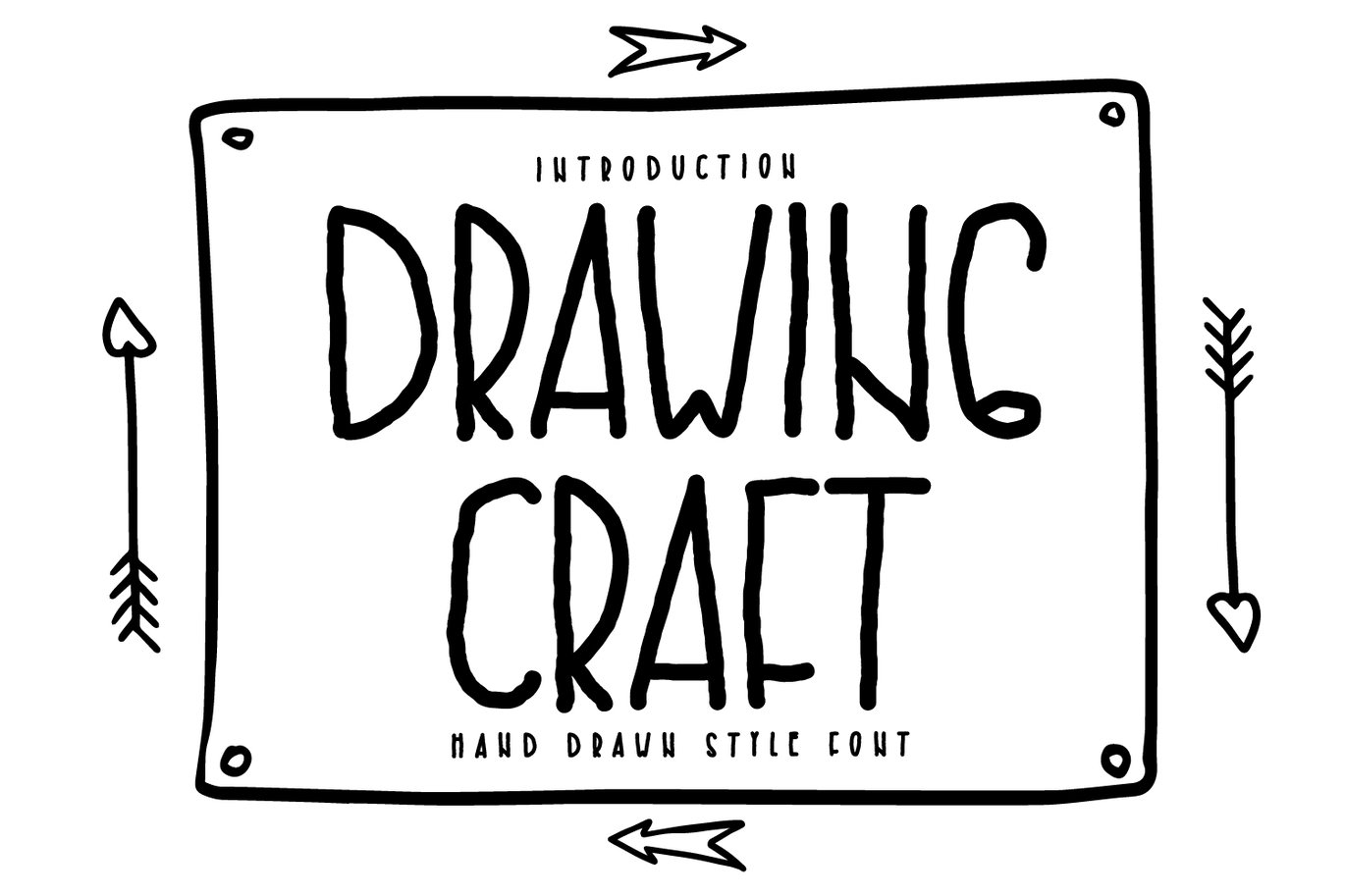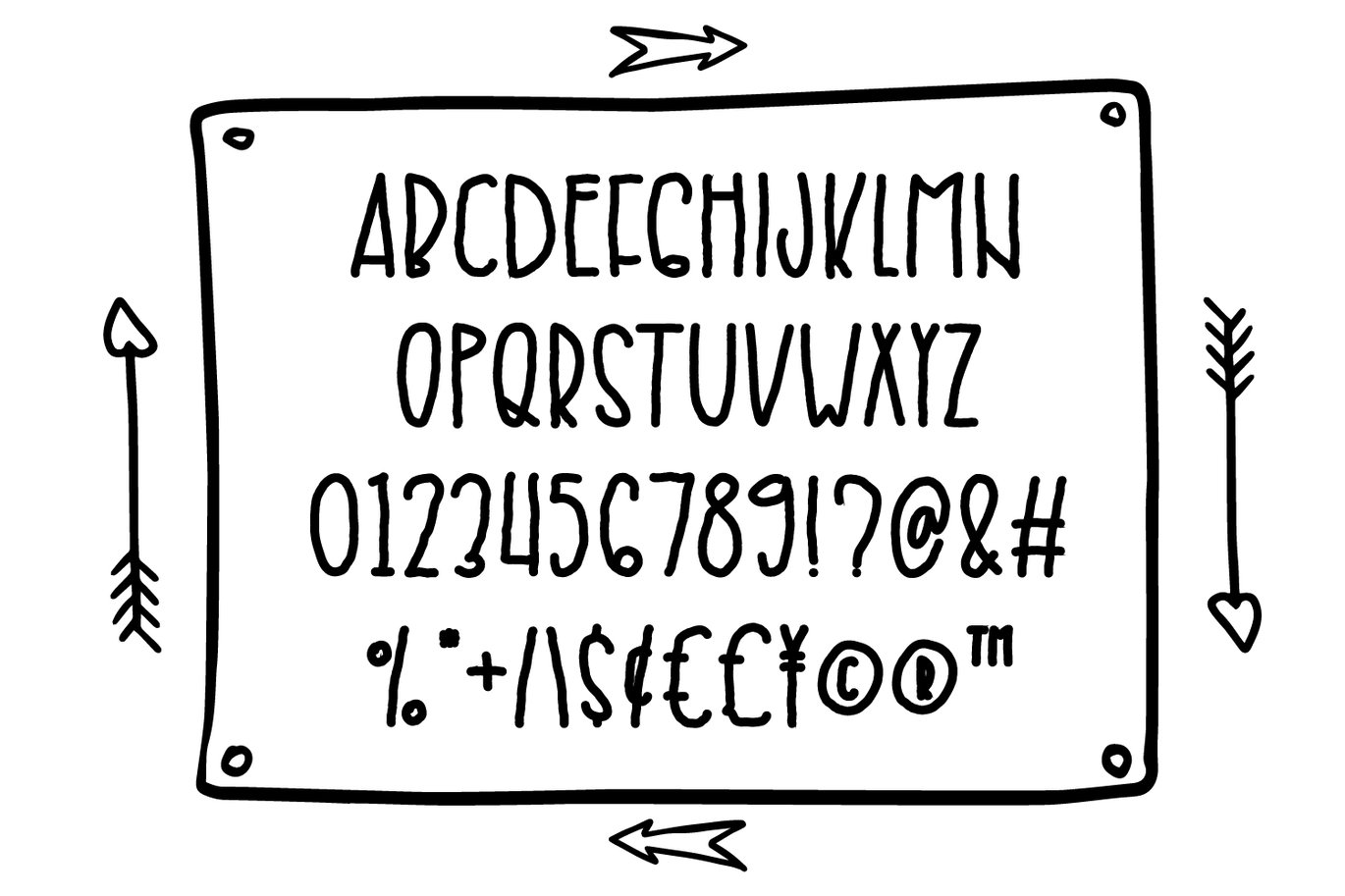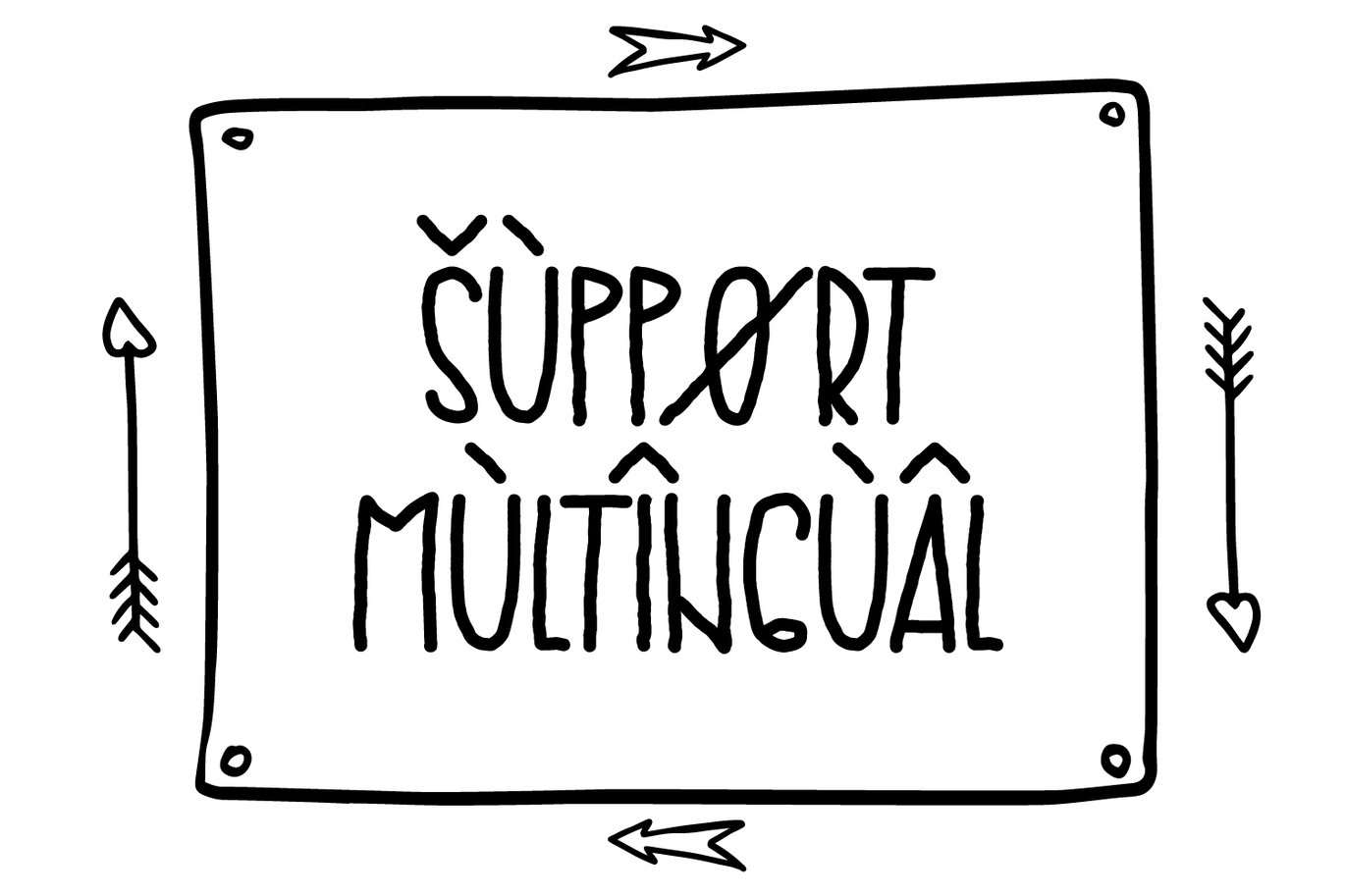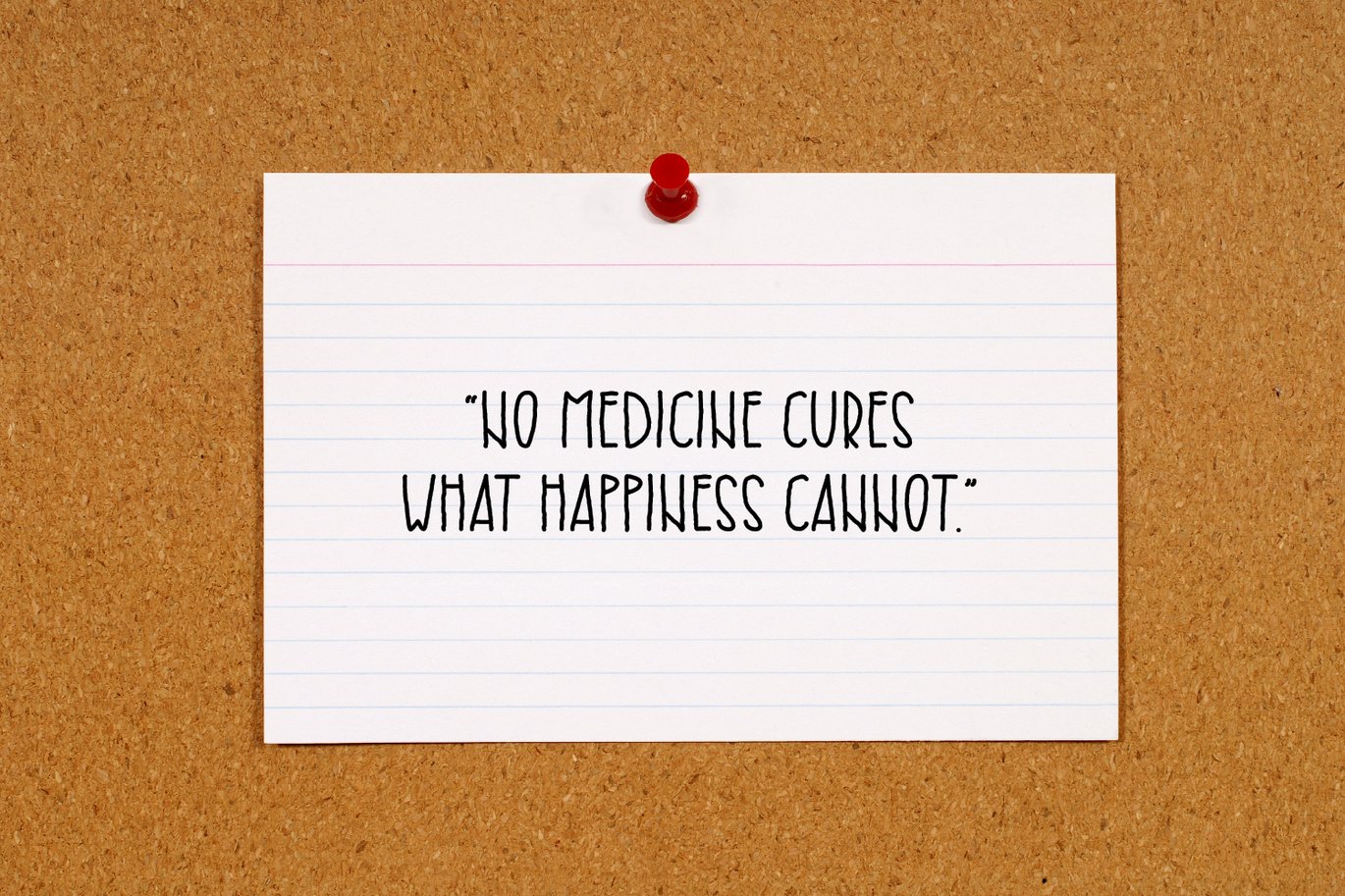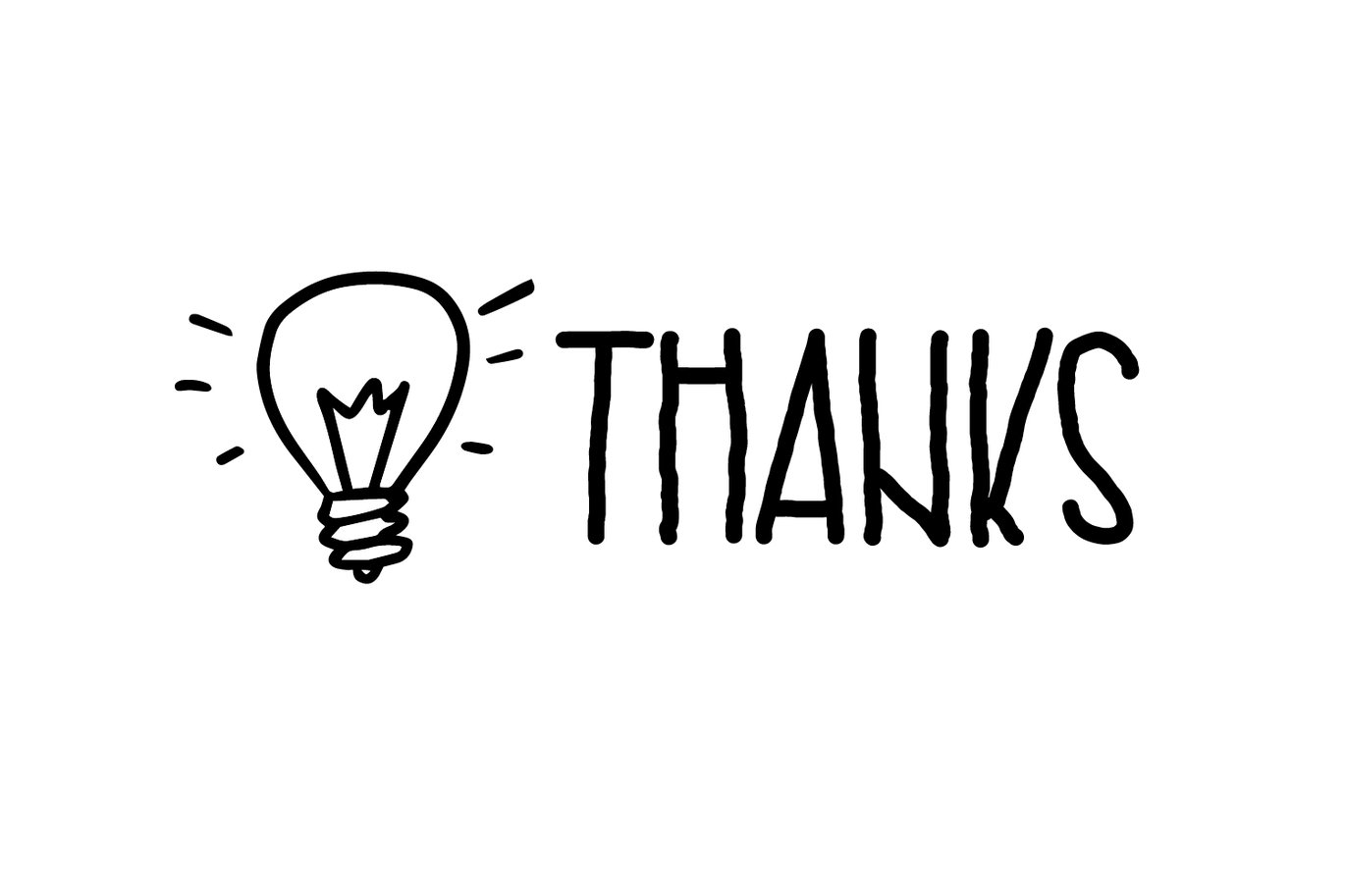
Drawing Craft – Cute Drawing Display Font
Introducing Drawing Craft – Cute Drawing Display Font
Drawing Craft is a neat and fun display font. Add this cute and friendly font to your library and employ it to a wide range of creations that require a jolly touch.